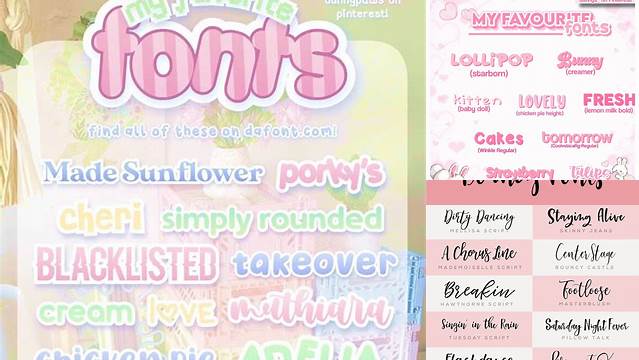
Cute Fonts On DaFont: Find Your Perfect Font
Hey font lovers! Are you on the hunt for cute fonts to add a touch of whimsy and charm to your projects? Well, you've come to the right place! In this guide, we're diving deep into the world of adorable typefaces available on DaFont, a treasure trove for free fonts. Whether you're designing invitations, social media graphics, logos, or anything in between, we'll help you discover the perfect cute font to make your creations shine. So, grab a cup of coffee, get comfy, and let's explore the delightful realm of cute fonts on DaFont!
What Makes a Font Cute?
Before we jump into specific examples, let's take a moment to define what exactly makes a font cute. It's a bit subjective, of course, but there are some common characteristics that tend to evoke feelings of playfulness, innocence, and sweetness.
First and foremost, many cute fonts feature rounded shapes and soft edges. Think of bubbly letters, gentle curves, and an overall lack of harsh lines. This creates a sense of approachability and friendliness, making the text feel less formal and more inviting. These fonts are visually soothing and can bring a sense of calm and ease to your projects.
Another key element is the presence of whimsical details. This could include things like decorative swirls, hearts, stars, or other playful embellishments. A cute font might have letters that appear to be hand-drawn or have a slightly imperfect quality, adding to its charm and authenticity. These small details can add personality and character to the typeface, making it stand out from more generic options.
Letter height and spacing also play a role. Cute fonts often have a slightly condensed or extended appearance, with varying heights and widths among the characters. This irregularity can add visual interest and prevent the text from feeling monotonous. Generous letter spacing can also contribute to the overall aesthetic, creating a sense of airiness and lightness. The size and spacing between letters can impact how readable the font is, so finding the right balance is important for both aesthetics and function.
Color is another powerful tool to enhance the cuteness factor. Pastel shades like pink, baby blue, lavender, and mint green are classic choices for creating a sweet and gentle vibe. Brighter, more vibrant colors can also work well, especially when used in combination with playful font styles. The use of color can really make the font pop and draw attention, adding an extra layer of visual appeal.
Finally, the overall mood and personality of the font are crucial. A cute font should evoke positive emotions and create a sense of joy. It should be appropriate for the intended audience and project, whether it's a children's book, a birthday invitation, or a social media post. The font should align with the message you are trying to convey and enhance the overall aesthetic of your design. Choosing the right font can make a big difference in how your message is received.
Top Cute Fonts on DaFont
DaFont is a fantastic resource for finding a wide variety of fonts, and it's especially known for its extensive collection of cute and whimsical typefaces. Navigating the site can be a bit overwhelming, so I've compiled a list of some of my personal favorites to get you started. These fonts are sure to add a touch of sweetness and playfulness to your projects!
1. Candy Beans
Candy Beans is a delightful, hand-drawn font that exudes youthful energy. Its rounded characters and slightly irregular baseline give it a playful, almost childlike quality. This font is perfect for projects related to kids, such as birthday invitations, party decorations, or children's books. The bubbly letters are incredibly inviting and make reading a fun experience. You can also use Candy Beans for casual social media graphics or blog headers, adding a touch of personality to your online presence. Its informal style makes it ideal for projects that aim to be approachable and friendly.
2. Hello Honey
If you're looking for a script font with a sweet and feminine touch, Hello Honey is an excellent choice. Its elegant swashes and delicate curves create a sense of sophistication while still maintaining a youthful charm. Hello Honey is particularly well-suited for wedding invitations, thank you cards, and other special occasion stationery. The flowing script adds a touch of romance and elegance, making your message feel even more personal. You can also use it for branding projects, logos, or website headers where you want to convey a sense of luxury and care.
3. Lemon Jelly
Lemon Jelly is a quirky and playful font that's sure to make your designs stand out. Its irregular letterforms and slightly offbeat style give it a unique and memorable personality. This font is perfect for projects that need a touch of whimsy, such as posters, flyers, or social media graphics. The unconventional design of Lemon Jelly makes it eye-catching and attention-grabbing. You can use it to create a fun and energetic vibe, especially in projects targeting a younger audience. Its playful nature makes it perfect for adding a creative flair to your designs.
4. Milkshake
As the name suggests, Milkshake is a smooth and creamy font that's simply irresistible. Its rounded characters and soft, flowing lines create a sense of warmth and comfort. This font is ideal for projects related to food and beverages, such as menus, recipe cards, or restaurant signage. The inviting and friendly nature of Milkshake makes it perfect for conveying a sense of deliciousness. You can also use it for branding projects that aim to create a welcoming and comforting atmosphere. Its gentle curves and smooth lines make it a visual treat.
- Etsy: Believe it or not, Etsy is a great place to find unique and handmade fonts. Many independent designers sell their fonts on Etsy, offering a wide range of styles you won't find anywhere else.